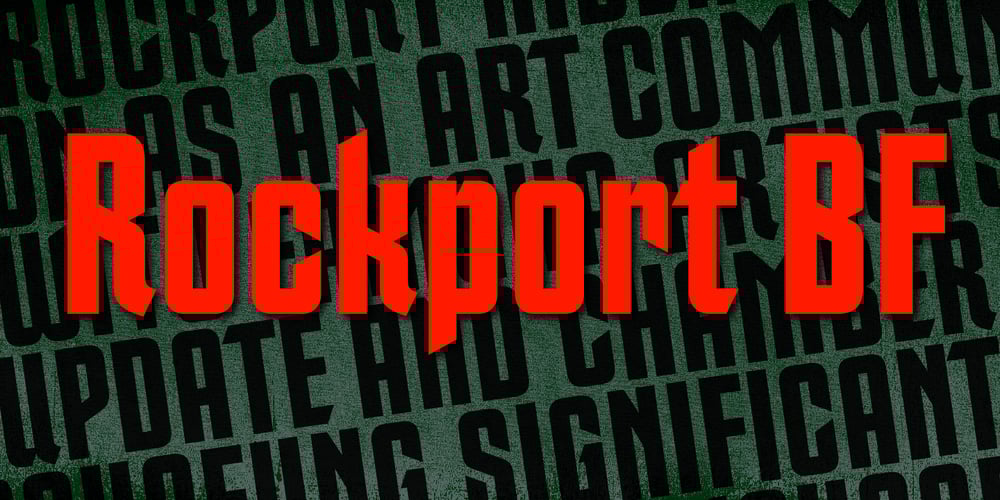
Rockport BF
Rockport BF font
Rockport BF Font Family was designed by John Bomparte and published by Bomparte’s Fonts. Rockport BF contains 1 styles and family package options. The roots of Rockport BF run deep. 19th century woodtypes, display gothics of the 40s and 50s, are inspiration for this distinctive font style. Its OpenType programming features automatic fractions, stylistic sets and alternates for a, b, q, r, t, u, y, M, N, U, Y, and dollar symbol. Tempered by somewhat humanistic elements, these condensed, geometrically-structured letterforms bring a strong but friendly presence to posters, logos, bookjackets, signage headlines, and many other typographic environments.